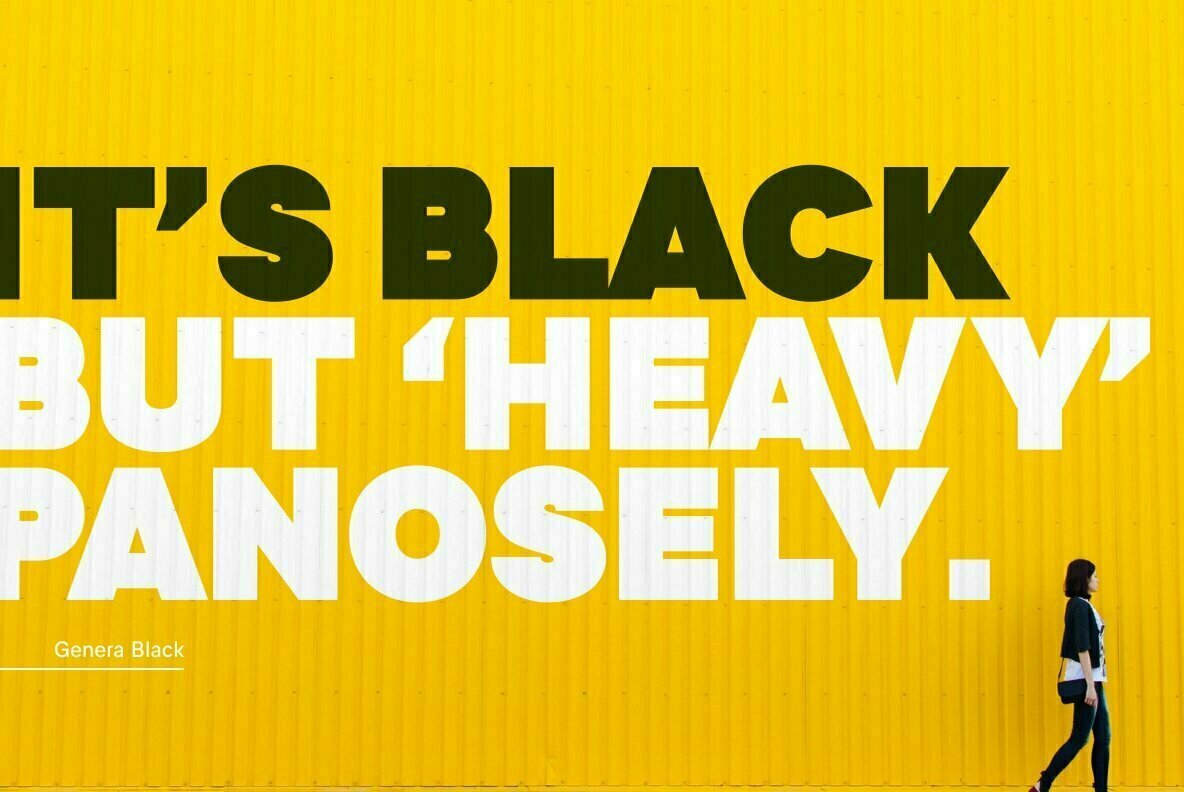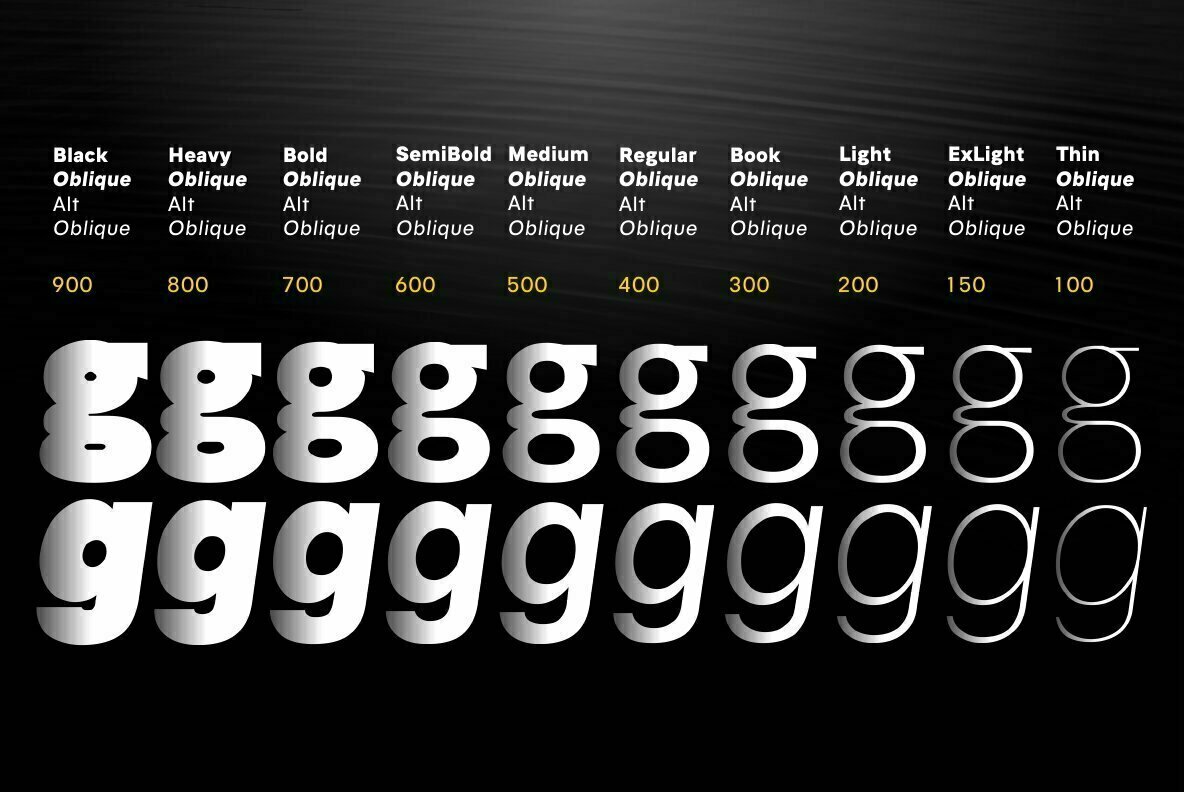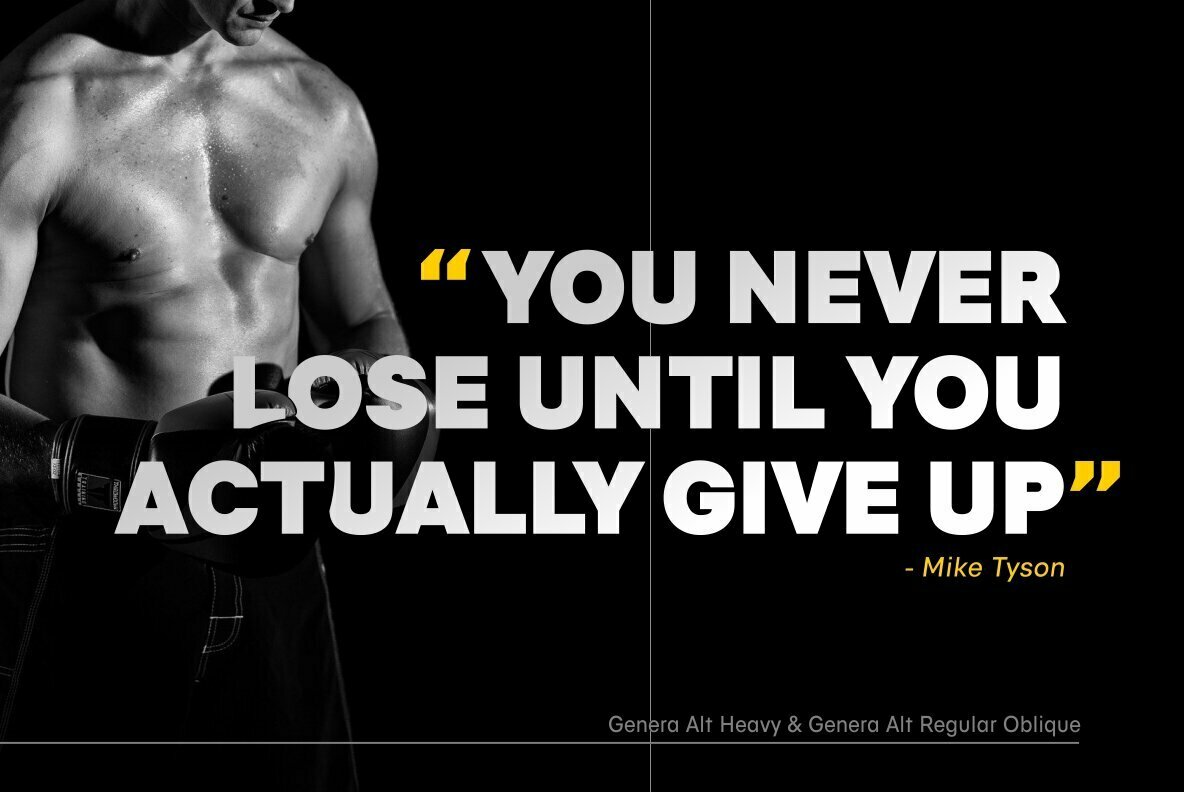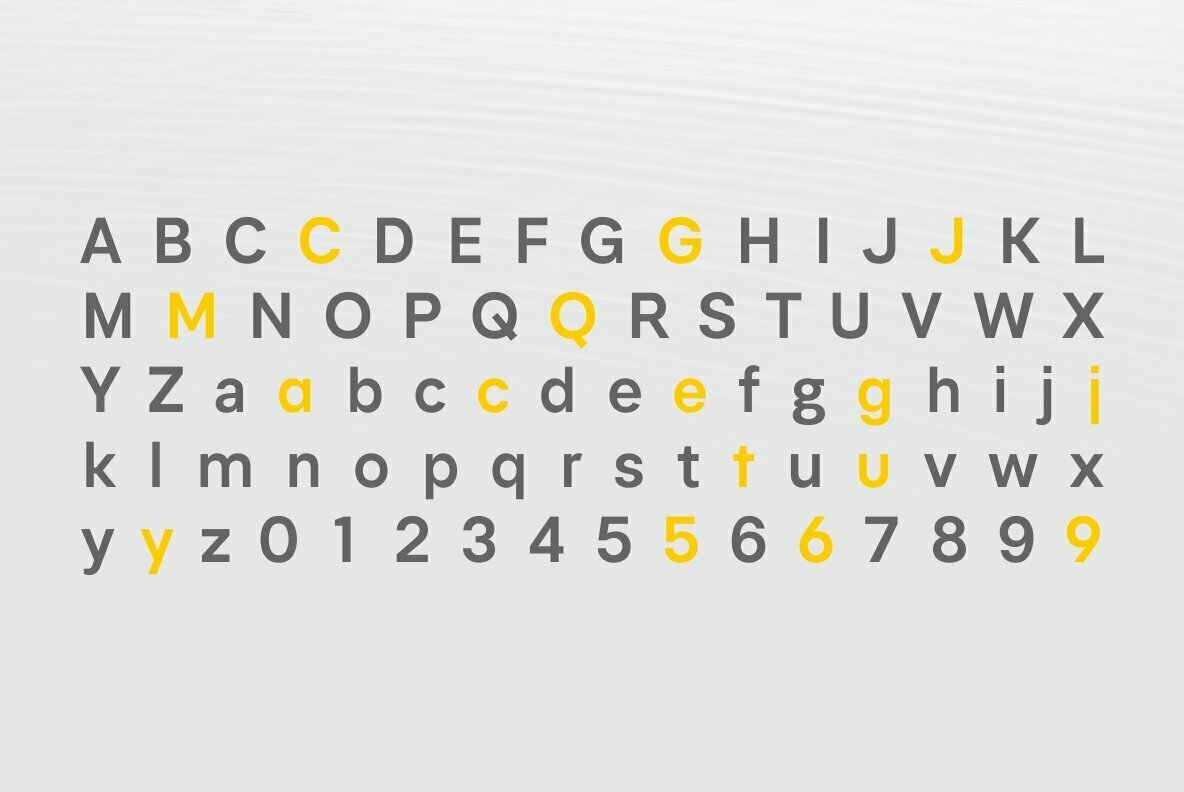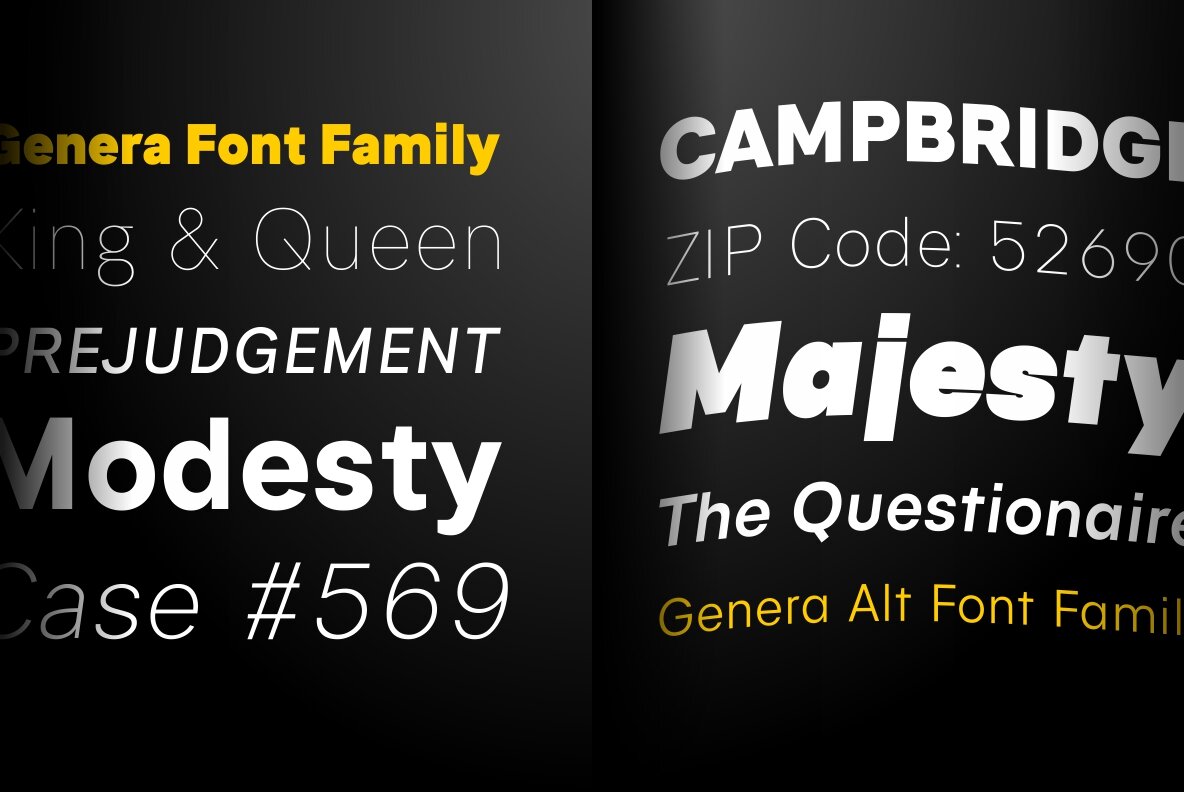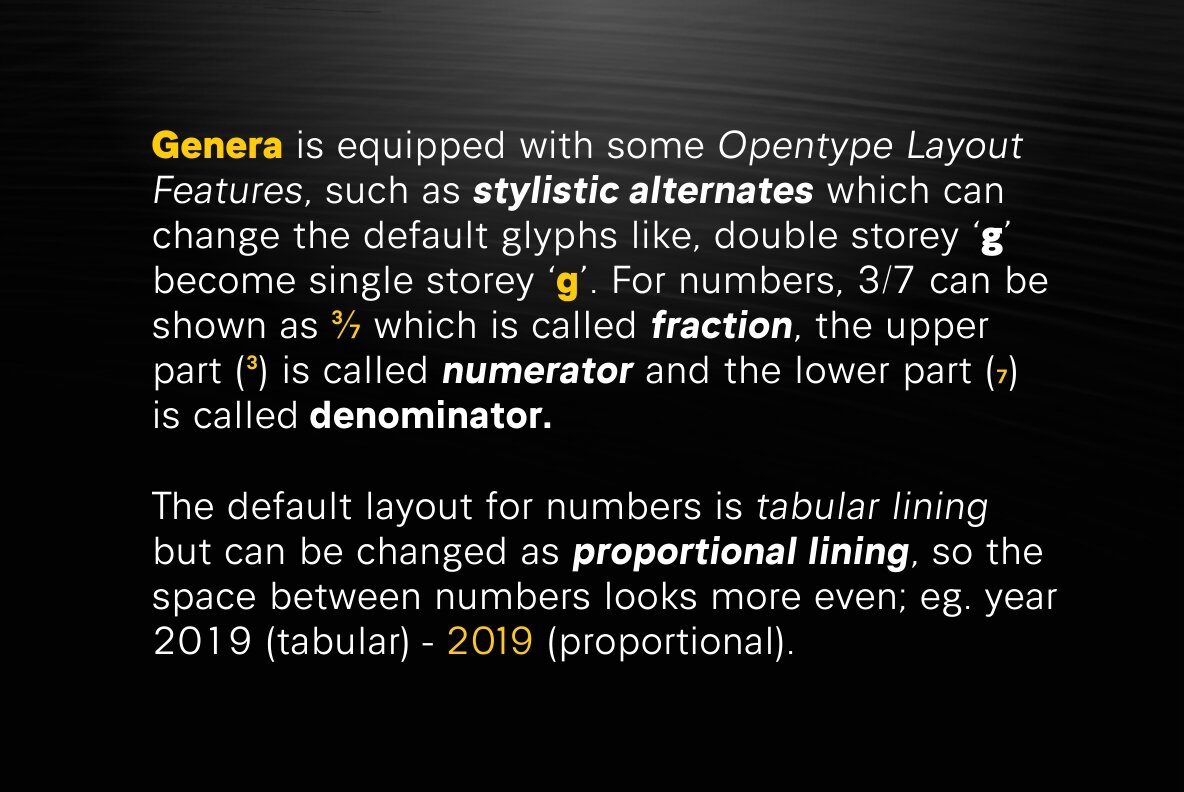
Genera Font
Genera is low contrast and neutral typeface for general design use. It was designed based on grotesque typefaces tradition with a unique touch to make the typeface has its own personality. It has large x-height, generous width, almost consistent monoline look on all weights and the most noticeable part is the unique terminal form of lowercase 'f', 'j', 'r', and 'y' which have straight horizontal side and curved line in the other side.
Genera has its twin brother which has additional Alt on its name which stands for Alternate. The alternate glyphs letterform was influenced by Futura typeface with its simple geometric form, which make this Alt version less legible than the basic one and makes it suitable for display purposes.
Genera font family has 40 members, consist of:
- Basic version; uprights & obliques in 10 weights,
- Alternate version; uprights & obliques in 10 weights.
Each font has 470+ glyphs which covers Western and Eastern Europe Latin based languages. Each font file also equipped with some Opentype Layout Features; Ordinal, Superior, Stylistic Alternates, Proportional Figure, Fraction, Numerator and Denominator.